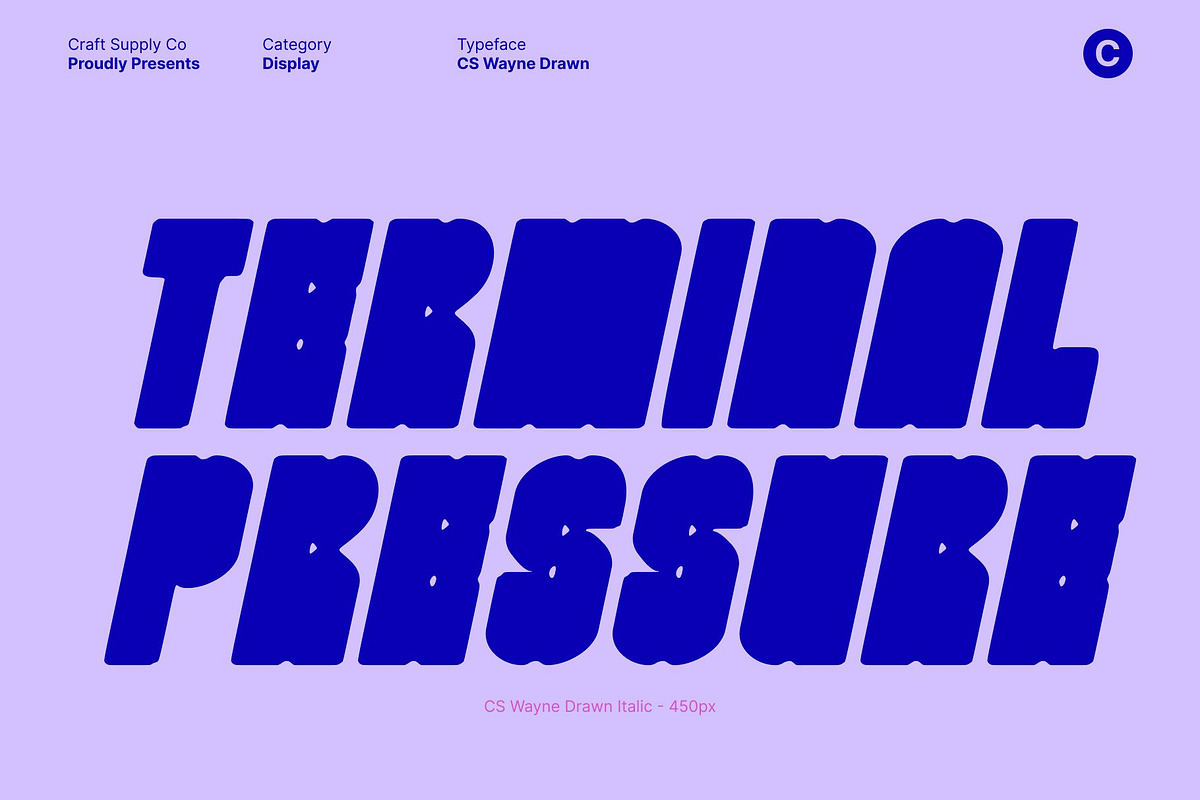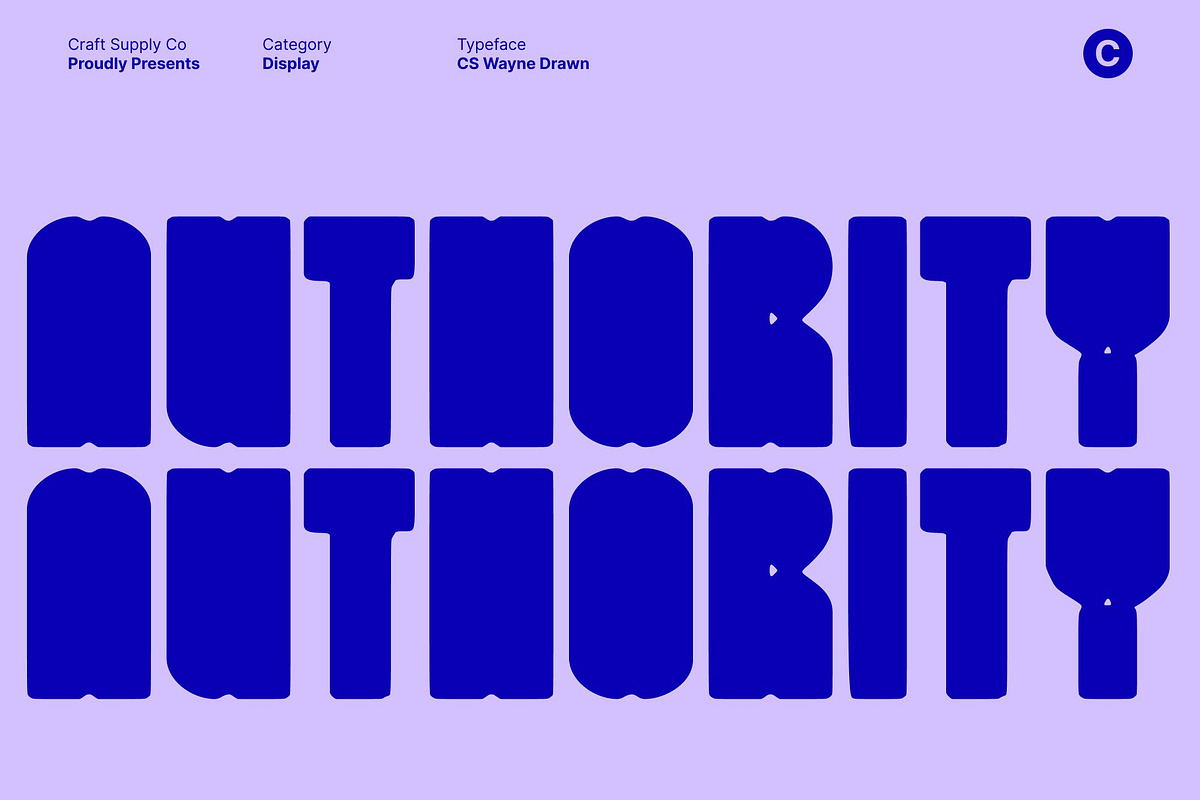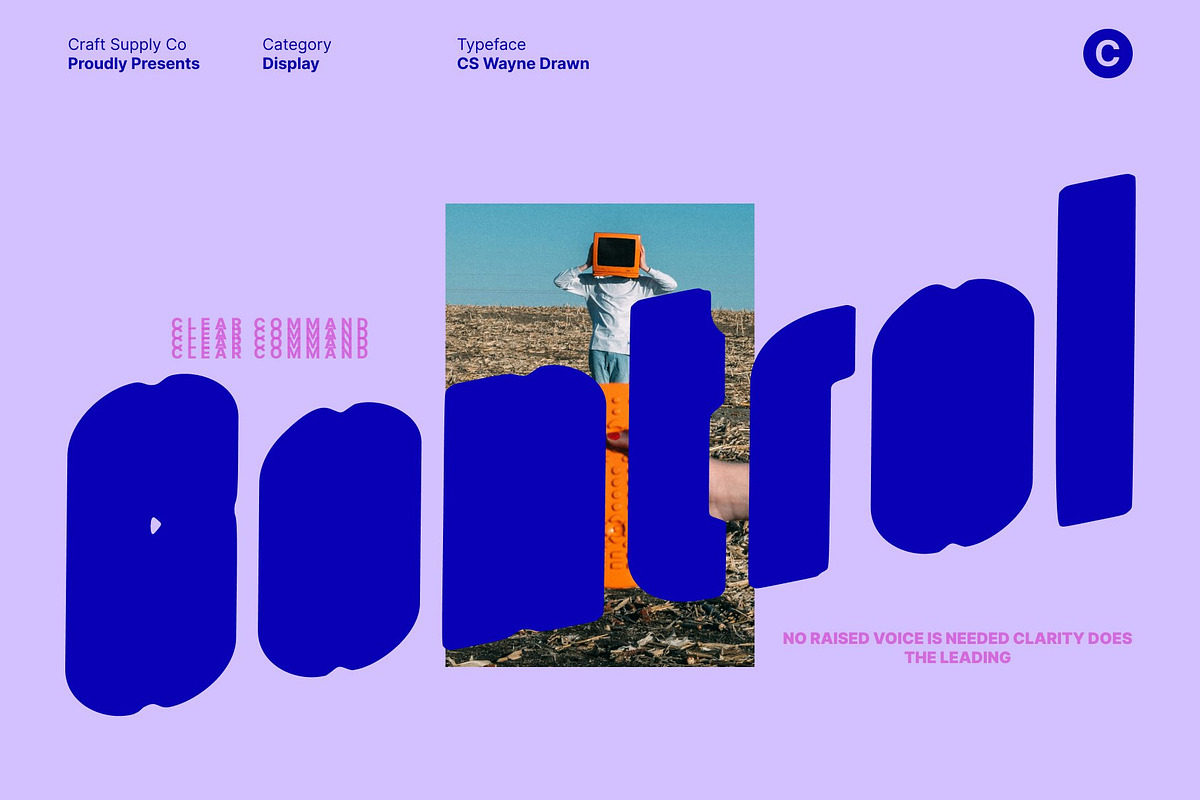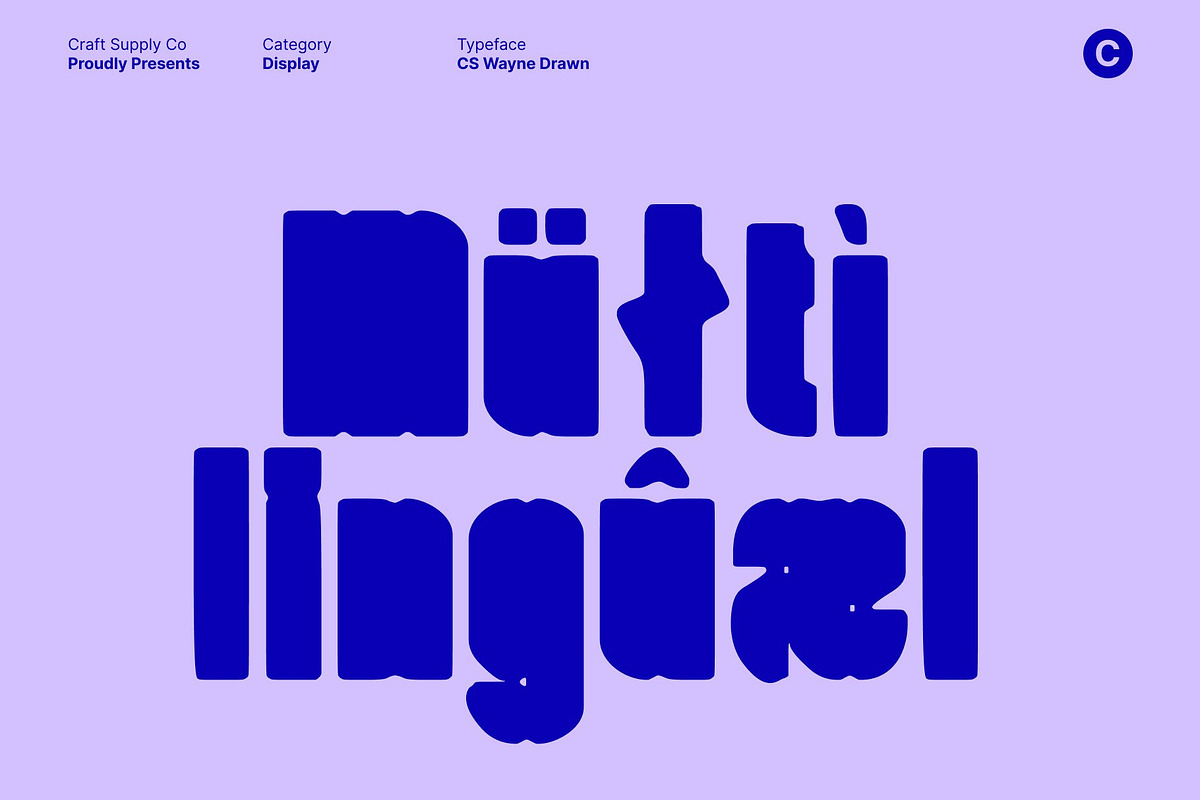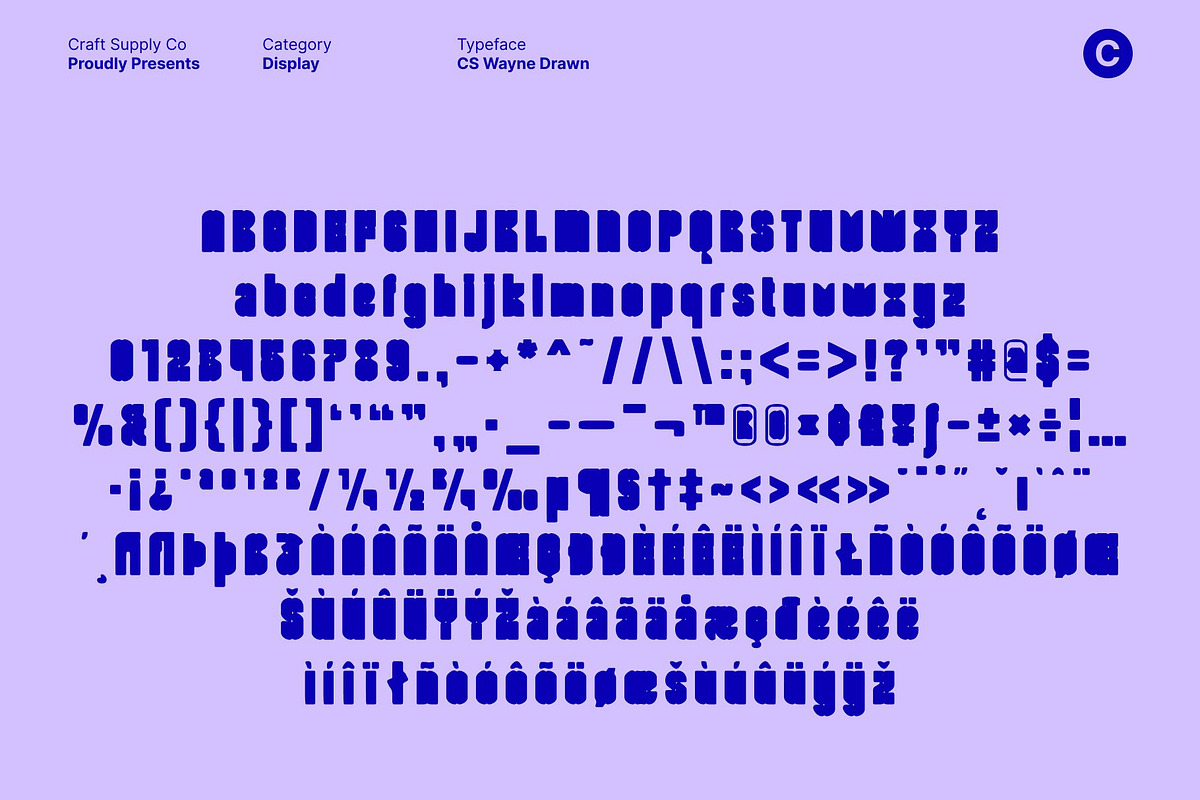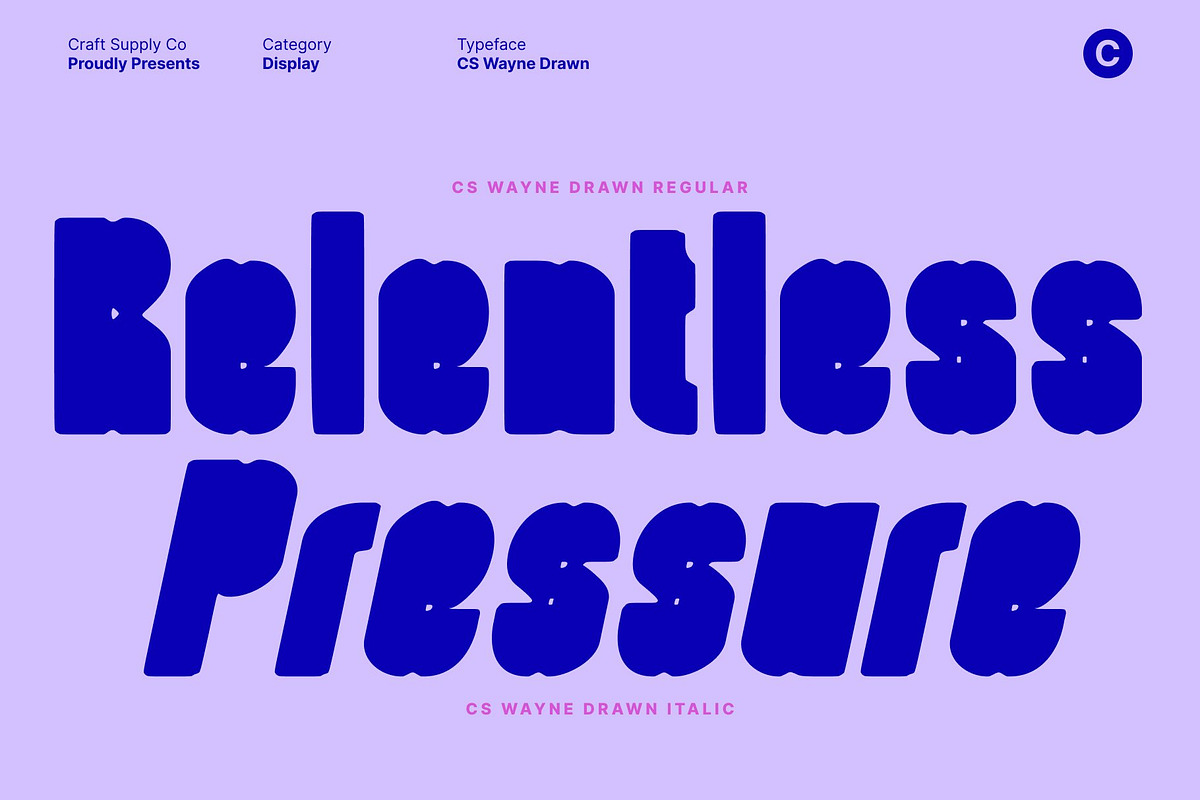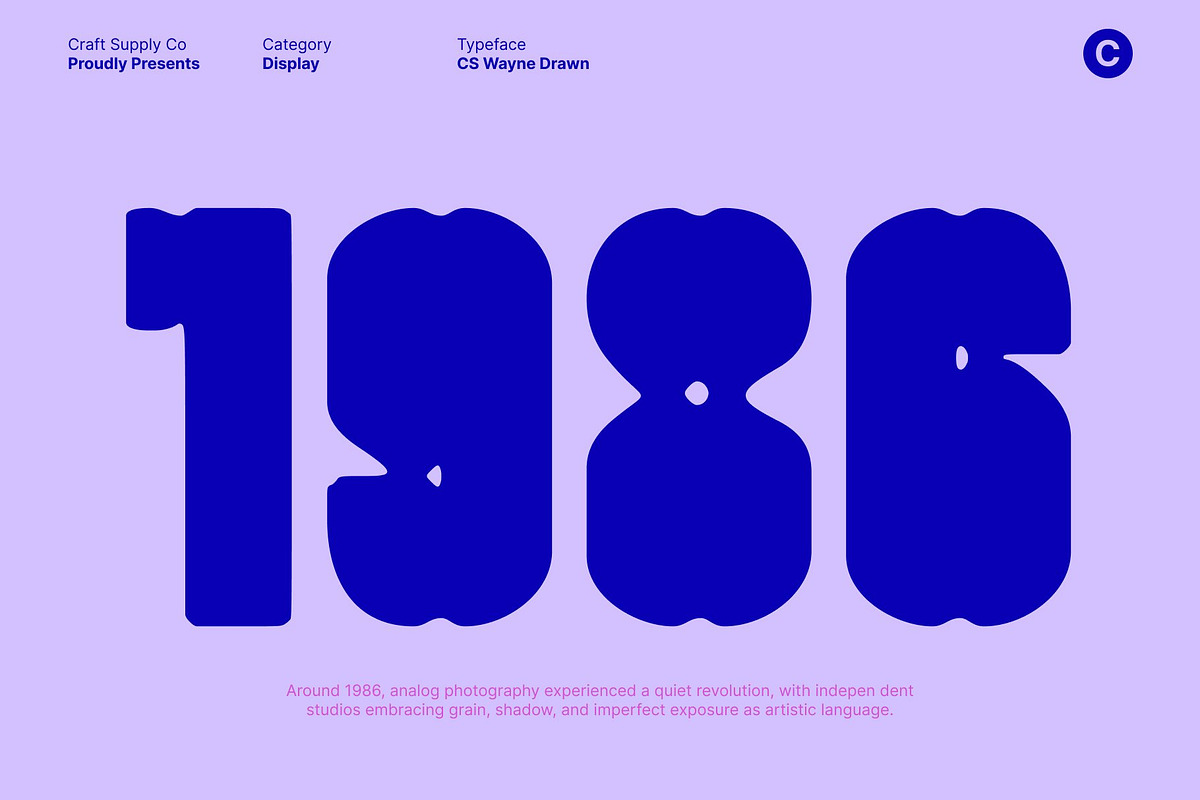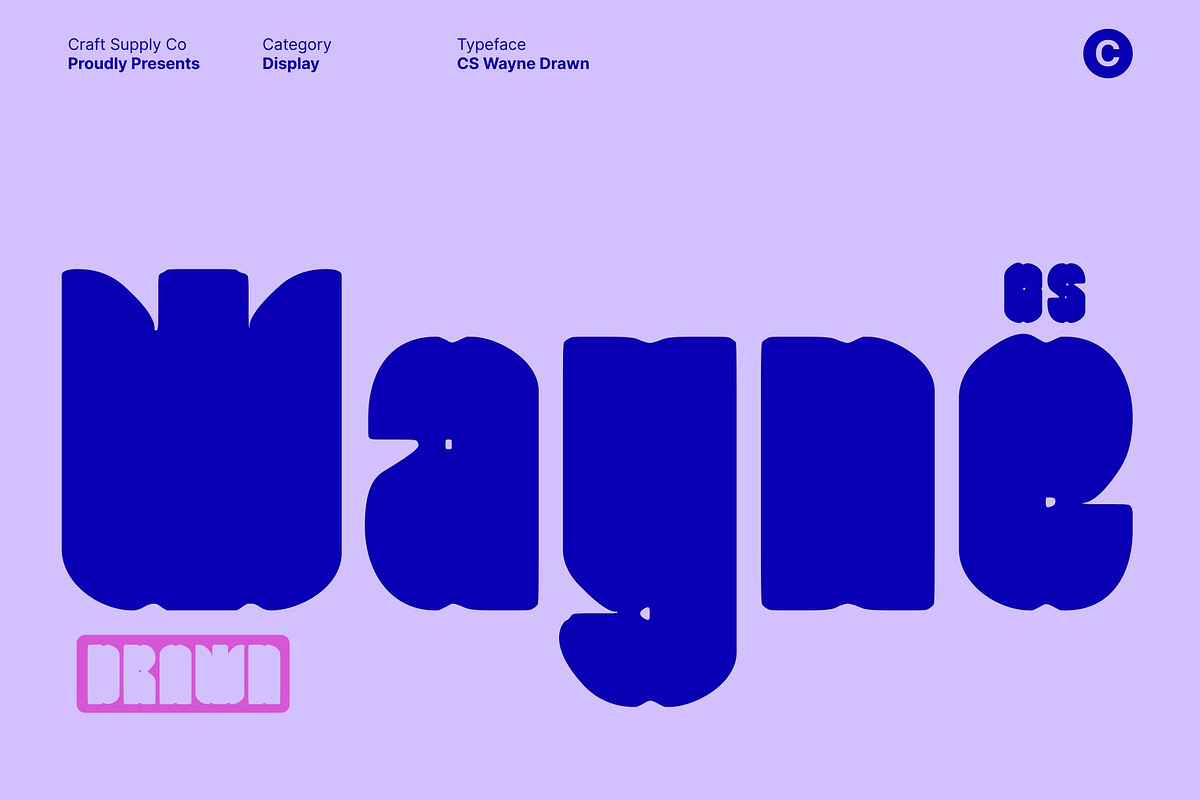
CS Wayne Drawn
CS Wayne Drawn – Bold Geometric Sans Serif Font with Hand-Drawn Texture
Bold Sans Serif with Blocky Geometry This is a bold sans serif font built from strong, block-like shapes and a clear geometric structure. Its solid construction delivers immediate visual impact, making it highly effective for titles and expressive typographic designs. The confident forms feel modern and assertive, ensuring your message stands out with clarity and strength.
Geometric Structure with Artistic Texture While the font is rooted in clean geometry, the drawn effect introduces an artistic, handcrafted texture that adds character and depth. Subtle irregularities soften the rigid blocks, creating a dynamic balance between precision and expression. This combination makes feel powerful yet creative, structured yet visually engaging.
Designed for Attention-Grabbing Display This font excels in large-scale display use where impact matters most. Its bold weight and strong silhouettes ensure excellent readability from a distance, making it ideal for posters, headlines, signage, and promotional graphics. Each letter commands attention, helping designs communicate energy and confidence instantly.
Perfect for Posters and Band Merchandise Whether used for poster designs that demand attention or band merchandise seeking a striking visual identity, delivers a memorable typographic voice. Its blend of geometric strength and hand-drawn texture ensures designs feel bold, expressive, and lasting leaving a strong impression long after the first glance.
- CS Wayne Drawn Regular
- CS Wayne Drawn Italic